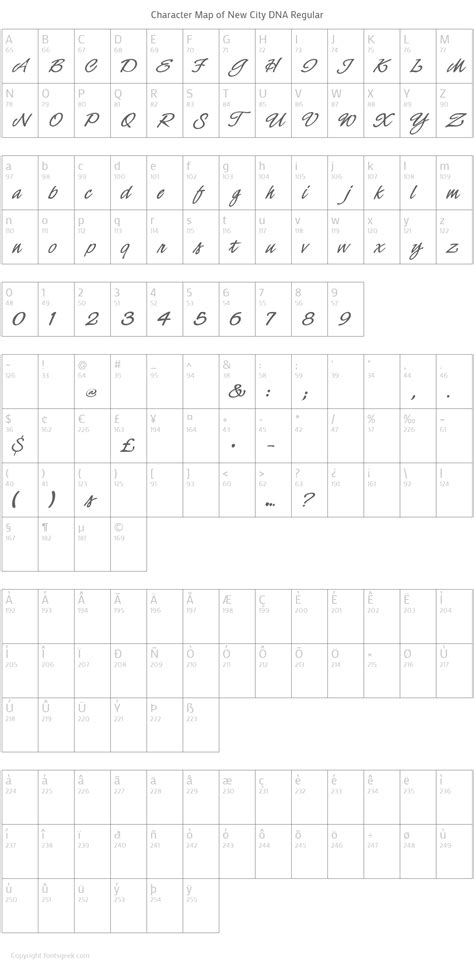
In the ever-evolving world of typography, the City DNA Font stands out as a unique and captivating choice for designers and enthusiasts alike. This font is not just a collection of letters and symbols; it embodies the essence of urban landscapes, capturing the vibrancy and energy of city life. Whether you're a graphic designer, a branding specialist, or simply someone who appreciates the art of typography, understanding the intricacies of the City DNA Font can elevate your projects to new heights.
Understanding the City DNA Font
The City DNA Font is designed to reflect the dynamic and multifaceted nature of urban environments. It combines elements of modern and retro styles, creating a timeless yet contemporary aesthetic. The font's distinctive features include:
- Bold and Dynamic Lines: The font's strong, bold lines convey a sense of strength and stability, much like the infrastructure of a city.
- Urban-Inspired Shapes: The shapes and forms of the letters are inspired by the architecture and design elements found in urban settings.
- Versatility: The City DNA Font is highly versatile, making it suitable for a wide range of applications, from logos and branding to web design and print media.
Applications of the City DNA Font
The City DNA Font is incredibly versatile and can be used in various design projects. Here are some key applications where this font shines:
- Branding and Logos: The bold and dynamic lines of the City DNA Font make it an excellent choice for creating logos and branding materials. It can help convey a sense of modernity and urban sophistication.
- Web Design: Incorporating the City DNA Font into web design can add a touch of urban flair to websites, making them more engaging and visually appealing.
- Print Media: From posters and flyers to brochures and magazines, the City DNA Font can enhance the visual impact of print media, making it stand out in a crowded market.
- Packaging Design: The font's urban-inspired shapes and forms make it ideal for packaging design, especially for products targeting an urban audience.
Designing with the City DNA Font
When designing with the City DNA Font, it's essential to consider the overall aesthetic and message you want to convey. Here are some tips to help you make the most of this font:
- Pairing with Other Fonts: The City DNA Font pairs well with both serif and sans-serif fonts. For a modern look, consider pairing it with a clean, minimalist sans-serif font. For a more traditional feel, a serif font can complement the urban aesthetic.
- Color Schemes: Choose color schemes that enhance the urban vibe of the font. Darker shades like black, gray, and deep blues can create a sleek and sophisticated look, while brighter colors can add a vibrant, energetic feel.
- Spacing and Alignment: Pay attention to letter spacing and alignment to ensure the text is easy to read. The City DNA Font has a bold presence, so proper spacing can help maintain readability.
💡 Note: When using the City DNA Font in digital media, ensure that the font size is large enough to be legible on various devices, especially on smaller screens.
Case Studies: Successful Use of the City DNA Font
To illustrate the effectiveness of the City DNA Font, let's look at a few case studies where this font has been successfully implemented:
Urban Fashion Brand
An urban fashion brand used the City DNA Font for its logo and branding materials. The bold lines and urban-inspired shapes perfectly captured the brand's edgy and modern aesthetic. The font was paired with a clean, minimalist sans-serif font for the tagline, creating a balanced and visually appealing design.
City Tourism Campaign
A city tourism campaign utilized the City DNA Font for its promotional materials, including posters, flyers, and social media graphics. The font's dynamic lines and urban shapes helped convey the energy and excitement of the city, making the campaign more engaging and memorable.
Tech Startup
A tech startup incorporated the City DNA Font into its website design. The font's modern and sophisticated look aligned well with the startup's innovative and forward-thinking image. The use of the font in headlines and key sections of the website helped create a strong visual impact and enhanced user engagement.
Comparing the City DNA Font with Other Urban Fonts
While the City DNA Font is a standout choice for urban-themed designs, it's essential to compare it with other popular urban fonts to understand its unique features. Here's a comparison table:
| Font Name | Style | Key Features | Best For |
|---|---|---|---|
| City DNA Font | Modern/Retro | Bold lines, urban shapes, versatility | Branding, web design, print media |
| Urban Grotesque | Modern | Clean lines, geometric shapes, minimalist | Logos, digital media, packaging |
| Neon Lights | Retro | Bold, neon-inspired, playful | Event posters, nightlife branding, retro designs |
In conclusion, the City DNA Font is a powerful and versatile choice for designers looking to capture the energy and vibrancy of urban environments. Its bold lines, urban-inspired shapes, and modern aesthetic make it suitable for a wide range of applications, from branding and web design to print media and packaging. By understanding the unique features of the City DNA Font and how to effectively use it in your designs, you can create visually stunning and impactful projects that stand out in a crowded market. Whether you’re a seasoned designer or just starting out, the City DNA Font offers a timeless and captivating way to bring the spirit of the city to life in your work.